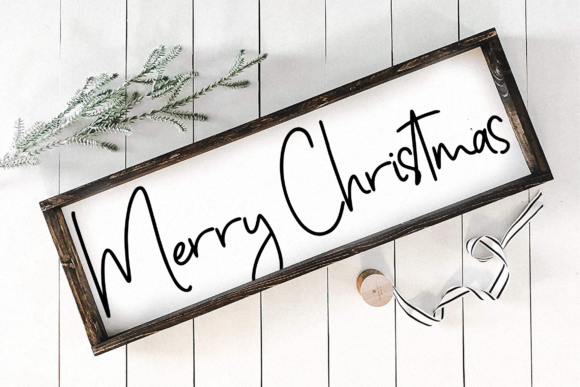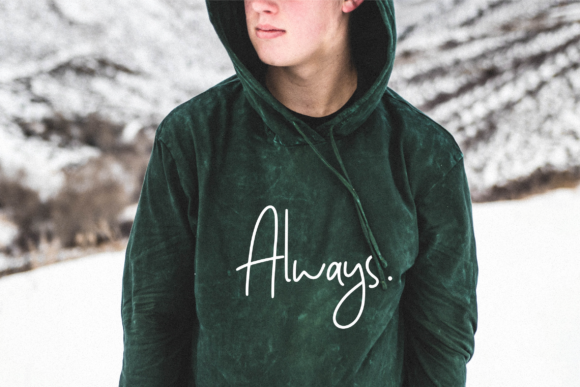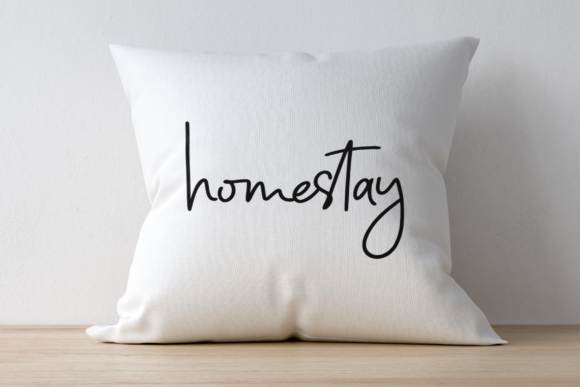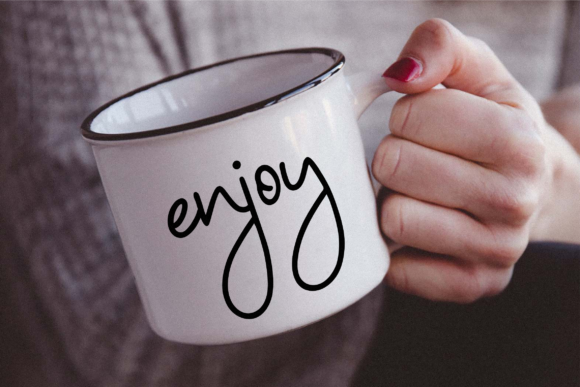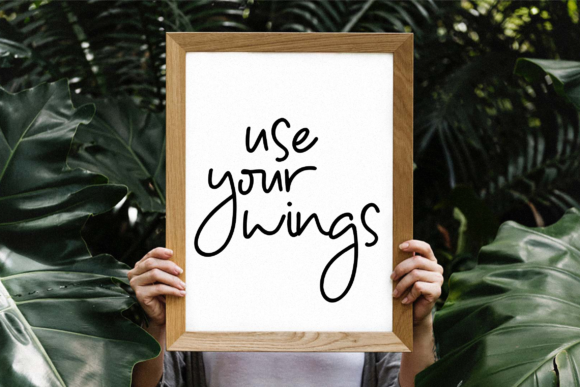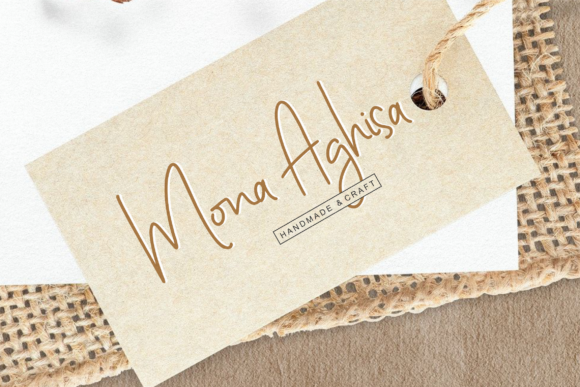
Introducing Clothingside Font: The Ultimate Choice for Creative Projects
Are you a designer, crafter, or DIY enthusiast looking for a font that can add a touch of personality to your creative projects? Look no further than Clothingside Font, a thin lettered and cute looking handwritten font that’s perfect for a wide range of applications.
What is Clothingside Font?
Clothingside Font is a unique and charming handwritten font that’s designed to add a personal touch to your designs. With its thin letters and cute aesthetic, it’s ideal for creating headings, logos, covers, magazines, and so much more. Whether you’re working on a branding project, creating a craft tutorial, or designing a social media graphic, Clothingside Font is the perfect choice.
Key Features of Clothingside Font
• Thin Lettered: Clothingside Font features thin letters that are perfect for creating elegant and sophisticated designs.
• Cute Aesthetic: The font has a cute and charming aesthetic that’s sure to capture the attention of your audience.
• Handwritten: Clothingside Font is a handwritten font that adds a personal touch to your designs.
• Versatile: The font can be used for a wide range of applications, from headings and logos to covers and magazines.
Uses of Clothingside Font
Clothingside Font is a versatile font that can be used for a variety of creative projects, including:
• Headings: Use Clothingside Font to create eye-catching headings for your blog posts, articles, and social media graphics.
• Logos: Create a unique and memorable logo for your brand using Clothingside Font.
• Covers: Use Clothingside Font to design stunning covers for your magazines, eBooks, and other digital publications.
• Magazines: Clothingside Font is perfect for creating magazine titles, headings, and other design elements.
• Crafting: Use Clothingside Font to create craft tutorials, patterns, and other DIY projects.
Benefits of Using Clothingside Font
There are many benefits to using Clothingside Font for your creative projects, including:
• Unique Aesthetic: Clothingside Font has a unique and charming aesthetic that’s sure to set your designs apart.
• Elegant: The font’s thin letters and elegant design make it perfect for creating sophisticated and professional-looking designs.
• Easy to Read: Clothingside Font is easy to read, making it perfect for body text and other applications where readability is important.
• Customizable: Clothingside Font can be customized to fit your brand’s style and aesthetic.
Tips for Using Clothingside Font
Here are a few tips for using Clothingside Font effectively:
• Use it sparingly: Use Clothingside Font sparingly to create emphasis and add visual interest to your designs.
• Pair it with other fonts: Pair Clothingside Font with other fonts to create a unique and visually appealing design.
• Experiment with colors: Experiment with different colors and textures to add depth and interest to your designs.
Font Name Clothingside Font
Author qwrtypefoundry
Clothingside Font is a unique and charming handwritten font that’s perfect for designers, crafters, and DIY enthusiasts. With its thin letters and cute aesthetic, it’s ideal for creating headings, logos, covers, magazines, and so much more. Whether you’re working on a branding project, creating a craft tutorial, or designing a social media graphic, Clothingside Font is the perfect choice.